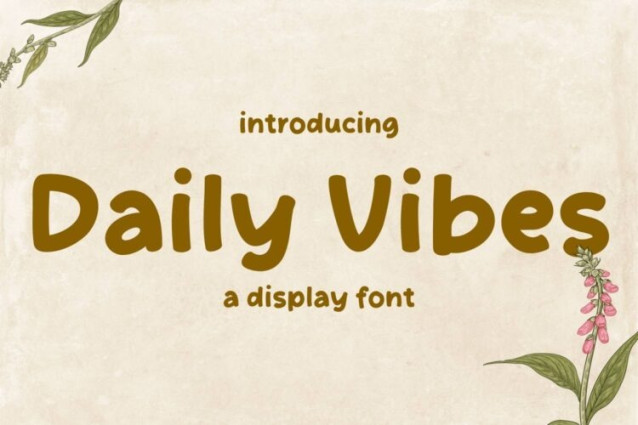
Daily Vibes Font
Daily Vibes Font is a simple and modern display font suitable for quotes, logos, headings, titles, and many more. Use it on any of your creative projects, and your designs will become outstanding!